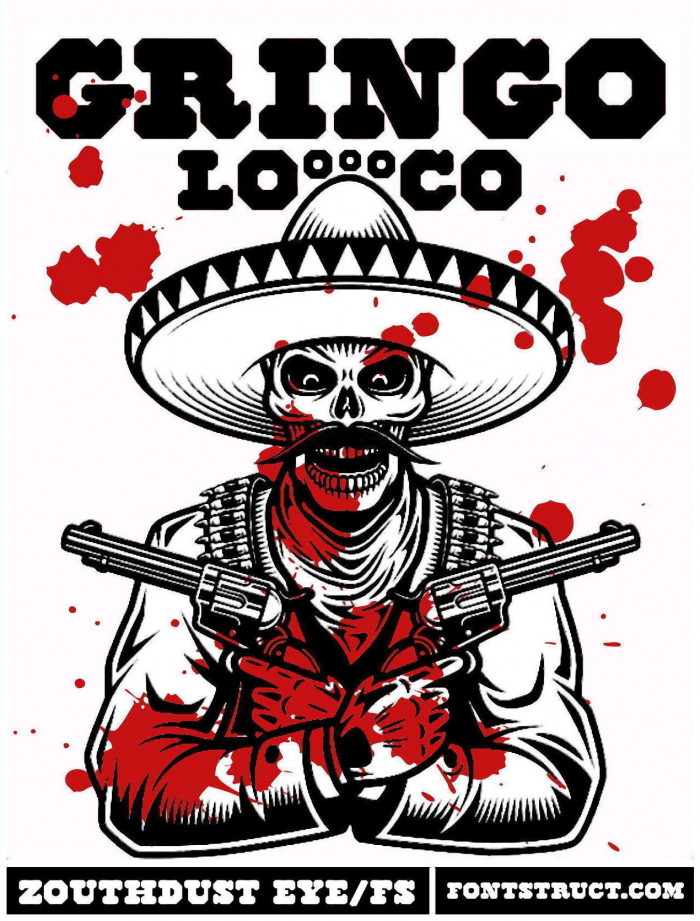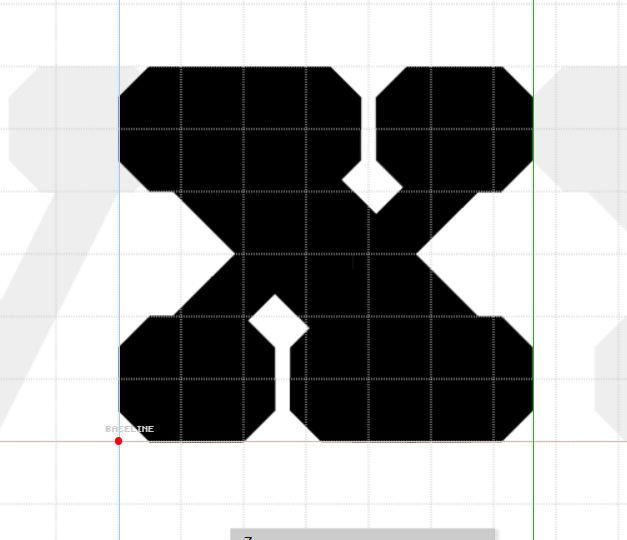
Lovely angular design with especially eye-catching samples~
El bandido locos wood type style, somewhat clumsy, but strong and fearless.
@thalamic: Thank you very much for your always kind comments about my works, master! The truth is that I thought that this font would be thinner and not so square, but in the end I liked the result because it makes it a little more different from the rest.
Another lovely chunky western with great samples!
I like. It can look interesting in 3D or outline style. But I think it's worth making the X like this to match the contrast of the other letters.
@Dmitriy Sychiov: To be honest, I tried this option myself when I was building the font, but it seemed a bit unbalanced. I'm now considering adding it to the set as an alternate glyph, thanks to your excellent suggestion.
How Ultra inspiring.